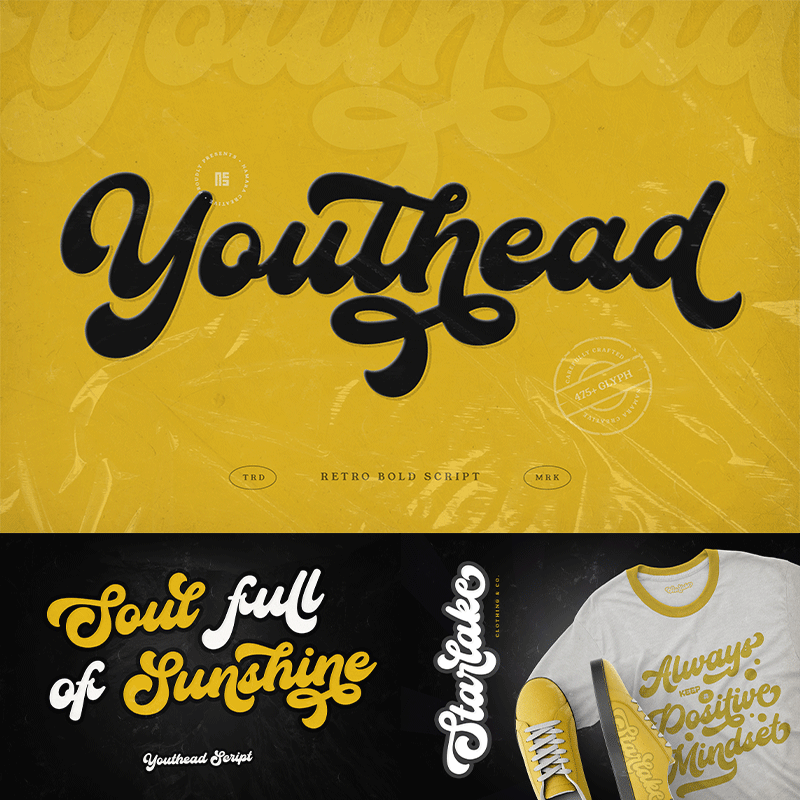
The perfect blend of vintage charm and contemporary elegance. Make your project memorable and stylish with the unique charm of retro-modern typography. Features : - Full set of standard characters and punctuations. - Alternates, ligatures, swashes and multilingual support. - PUA Encoded | no special software needed to access extra characters. Notes : - This Font is PERSONAL USE ONLY, NO COMMERCIAL USE ALLOWED! - For Full Version and COMMERCIAL USE, please purchase license here https://onedsgn.com/product/youthead-script/ |